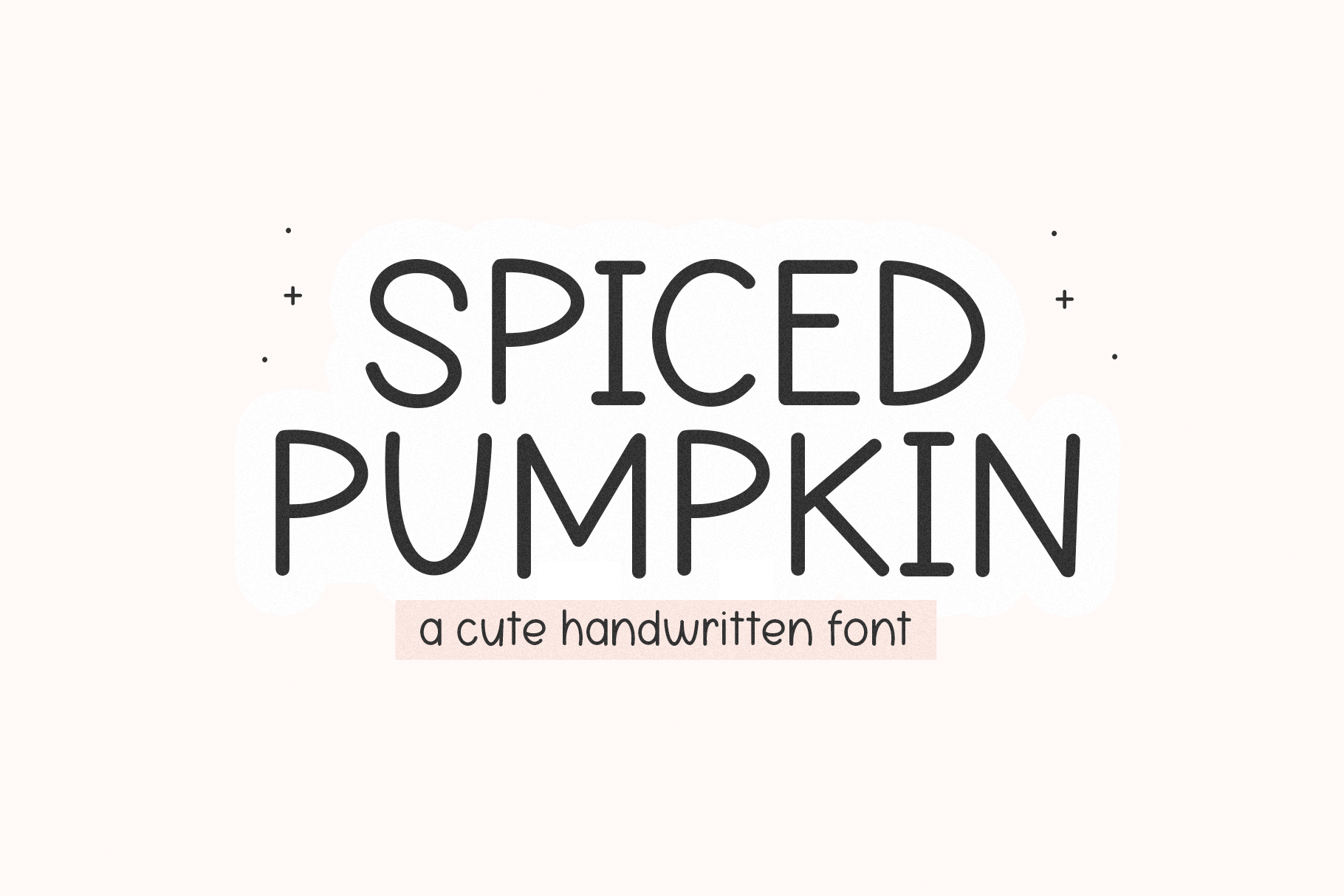
Spiced Pumpkin | Handwritten Font
Spiced Pumpkin is a cute handwriting font.
This font is perfect for cricut projects, svg files, goodnotes, planners, stickers, quotes, social media and more!